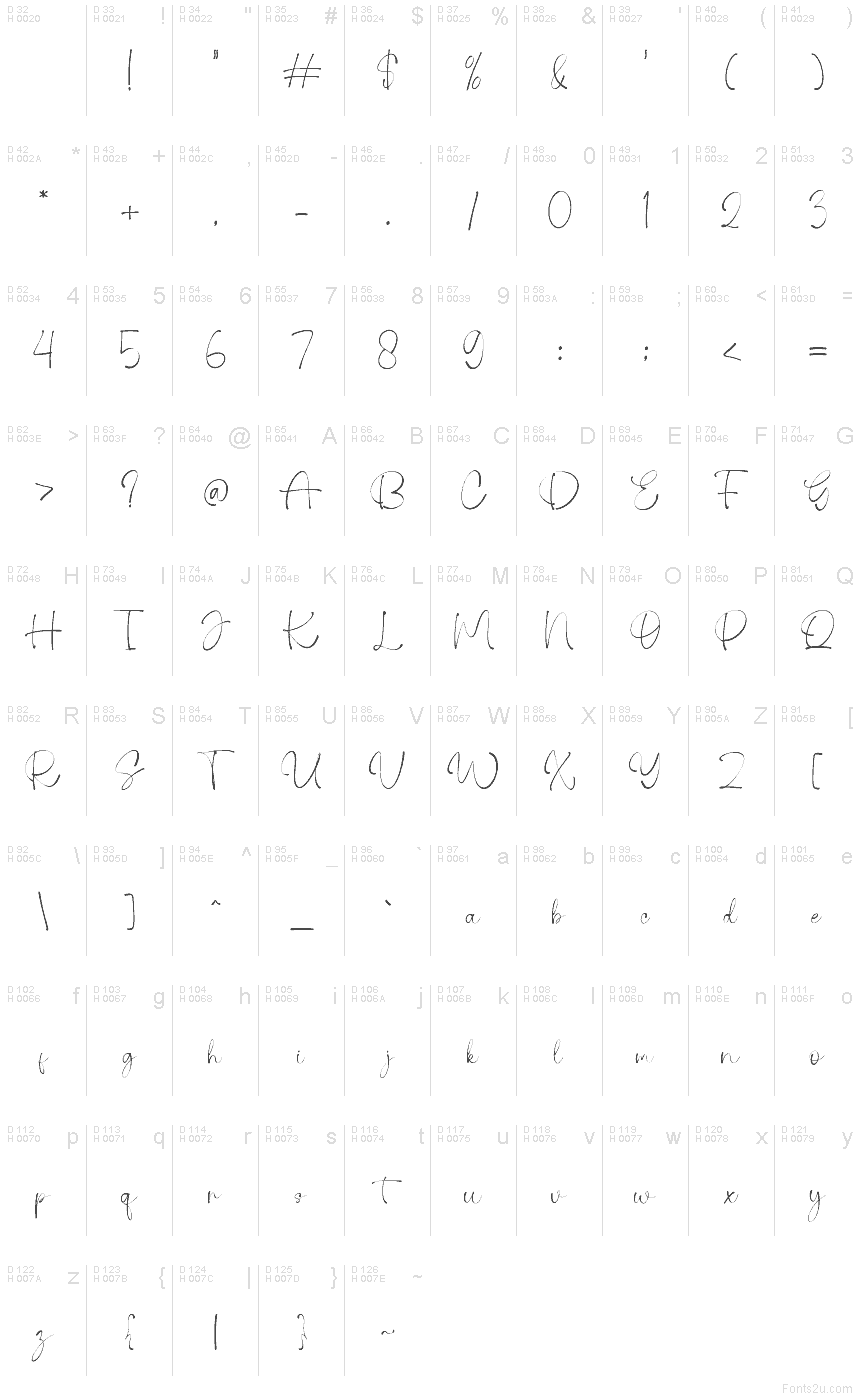
NCL Gispon
NCL Gispon font by Enxyclo Studio is a free calligraphy typeface that dances between airy hairlines and inky swells. Its long, ribbon-like strokes and breezy spacing feel hand-brushed—lively, a little wild, yet still legible. Subtle texture gives each word a tactile, pen-on-paper warmth, while tall loops add graceful lift without getting fussy.
Using NCL Gispon, headlines glide and signatures feel personal. This free font shines on wedding stationery, boutique logos, beauty packaging, photographer watermarks, quote graphics, and café menus. The flowing rhythm brings romance and motion, especially at larger sizes. Pair it with a quiet sans for small text, letting NCL Gispon sing in titles and accents where its delicate line-work can breathe.